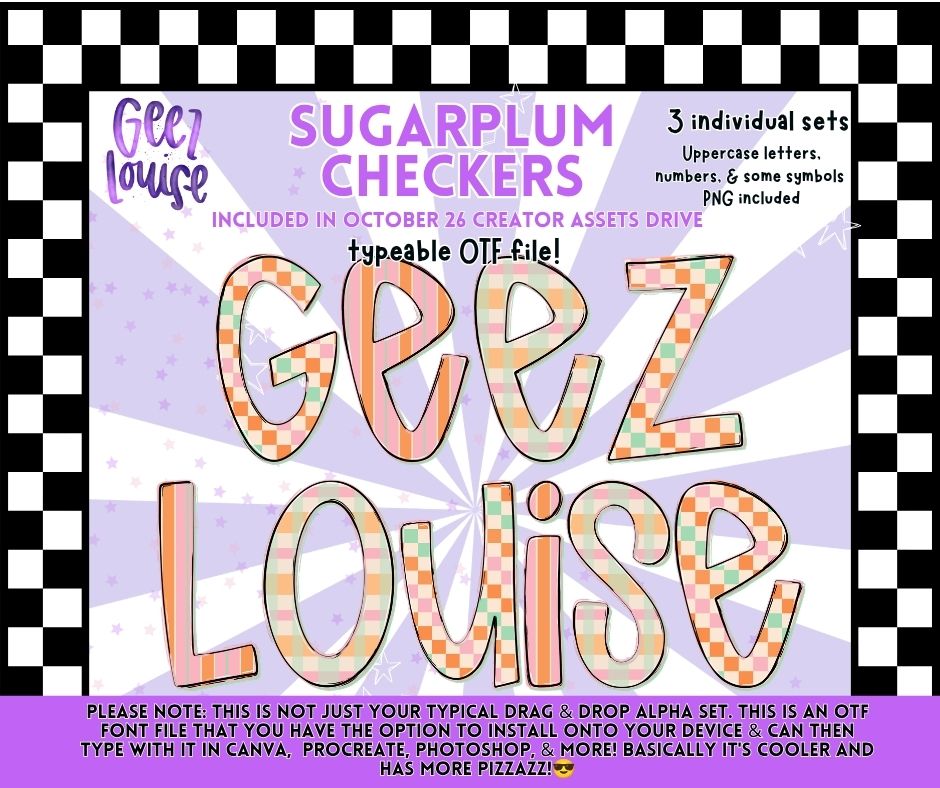
Sugarplum Checkers Christmas Alpha Bundle | 3 OTF Fonts + PNG Alphabets
A sweet retro Christmas alpha bundle featuring 3 coordinating pastel patterns with checkers, stripes, and soft holiday colors. Includes 3 typeable OTF fonts plus uppercase letters, numbers, and select symbols as individual PNG files. 🍬🎄